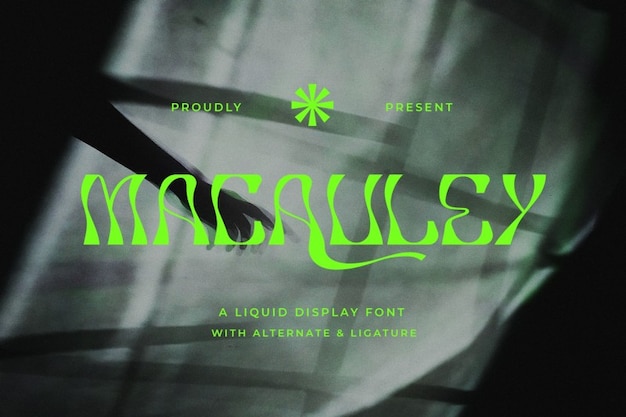
Macauley Font
Macauley is a quirky font that embodies the playful essence of liquid movement and wave-like forms. Each letter flows with a dynamic, undulating style, creating a sense of rhythm and fun. Perfect for creative projects, children's materials, or any design that seeks to capture a lighthearted spirit, Macauley adds a refreshing touch that invites imagination and brings text to life with its fluid, energetic character.